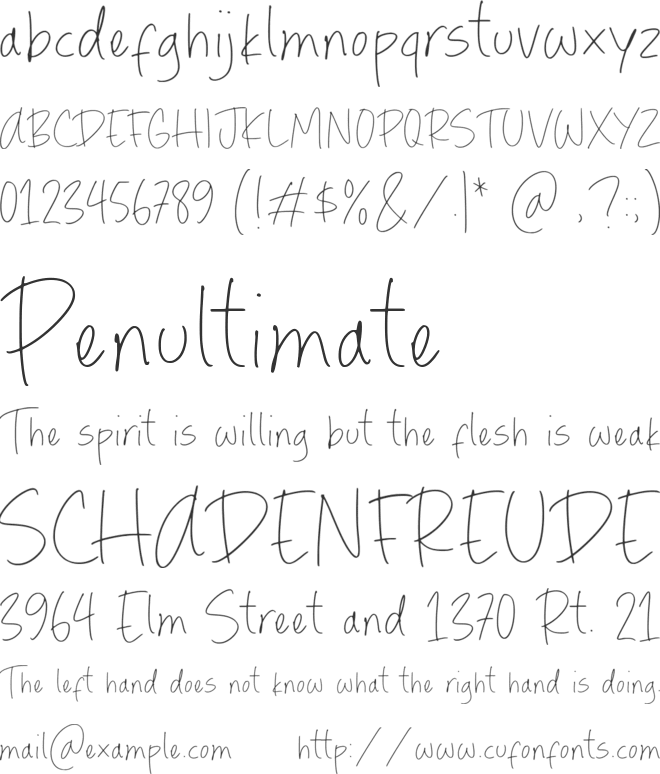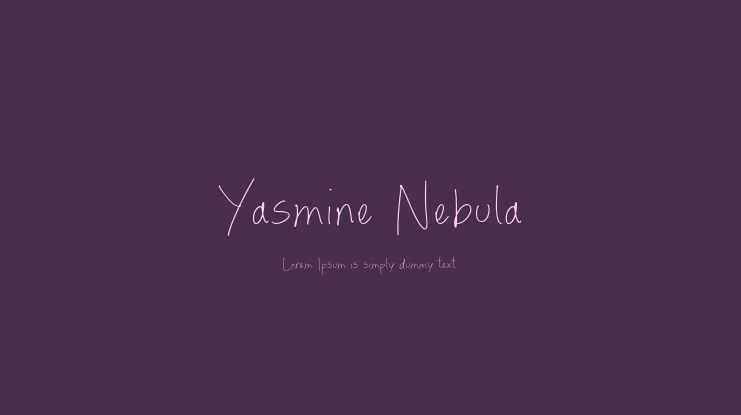
Yasmine Nebula Font
Yasmine Nebula is a Quirky Handwritten Font
This font is a quirky, handwritten font with a playful yet elegant touch. Its whimsical letterforms feature irregular strokes and subtle curves, evoking a sense of creativity and spontaneity. Perfect for branding, invitations, and artistic projects, Yasmine Nebula adds a charming, feel to any design.
Yasmine Nebula Font also supports multilingualism